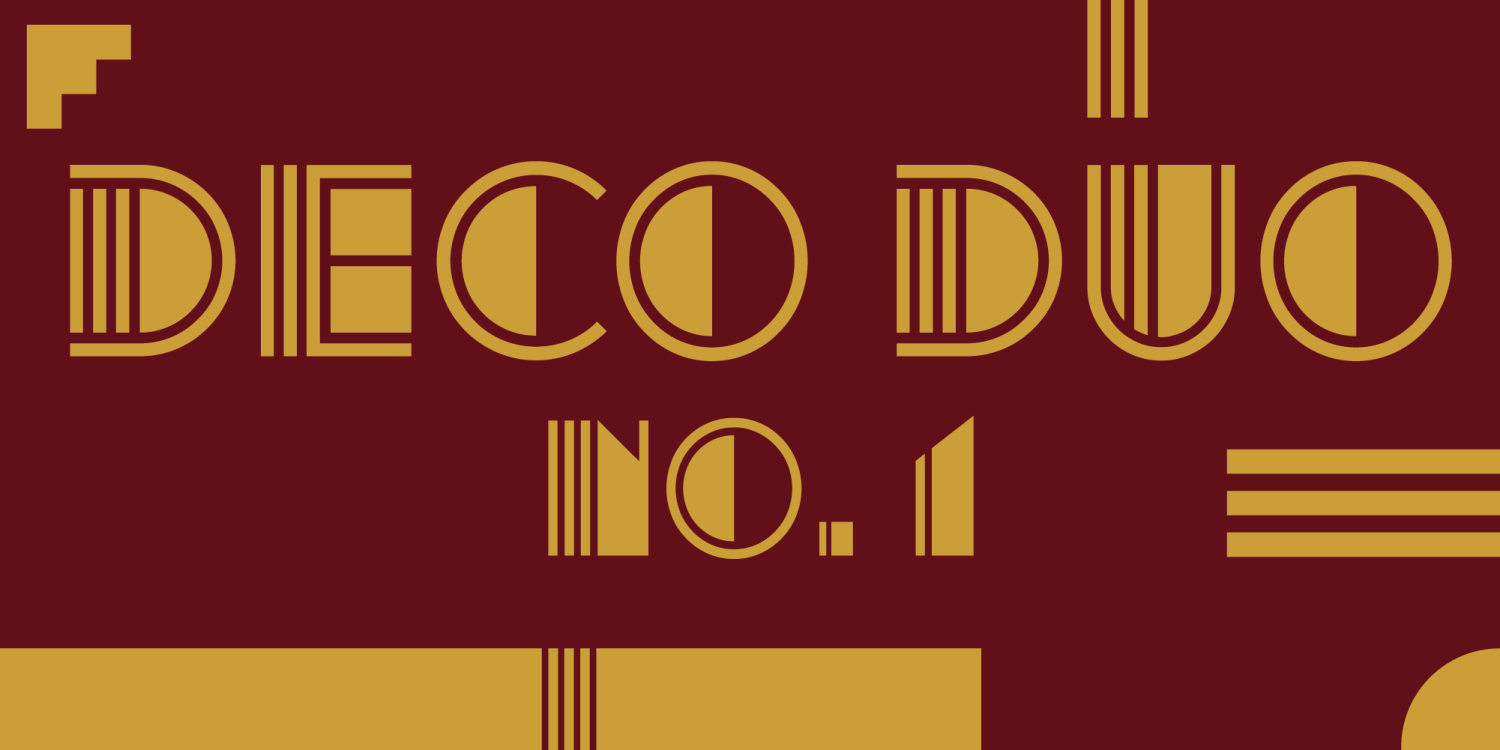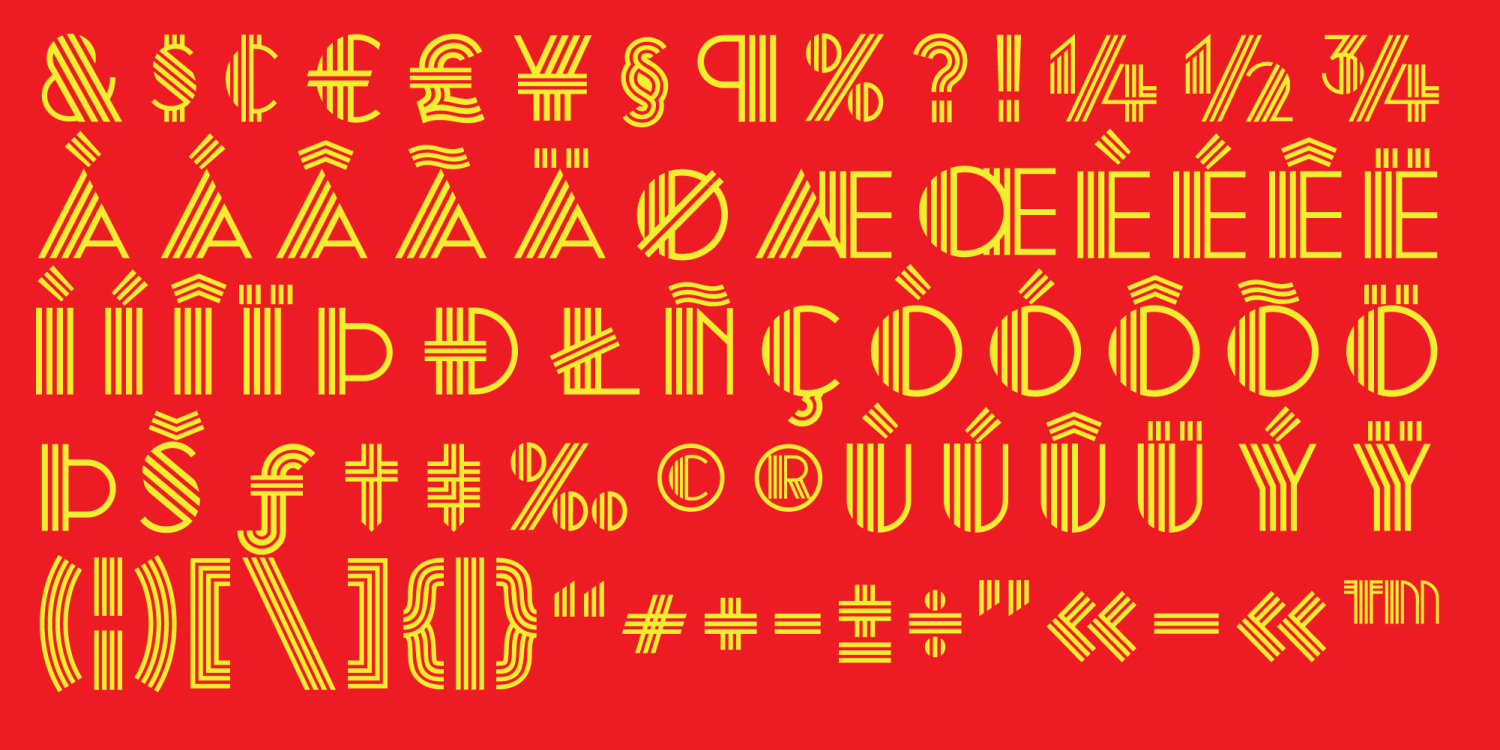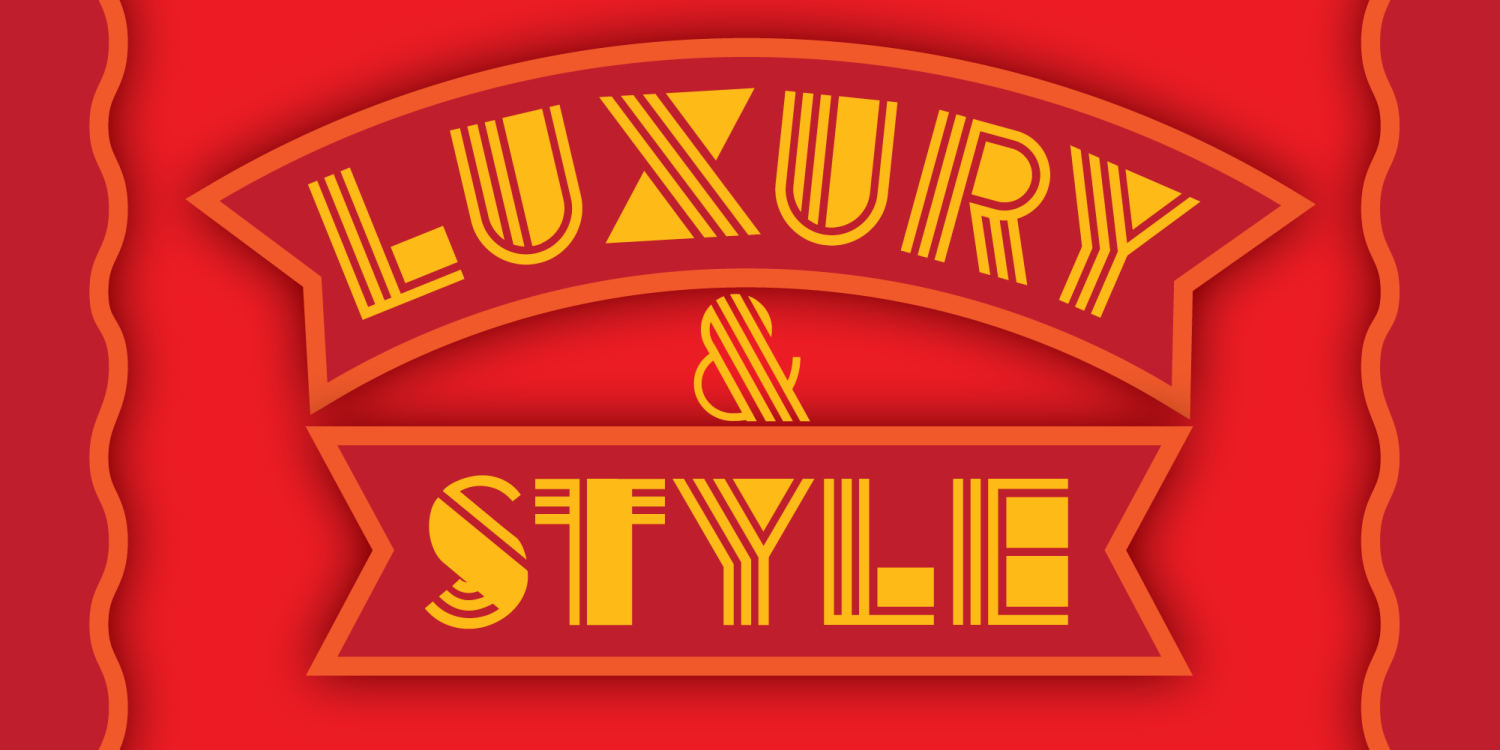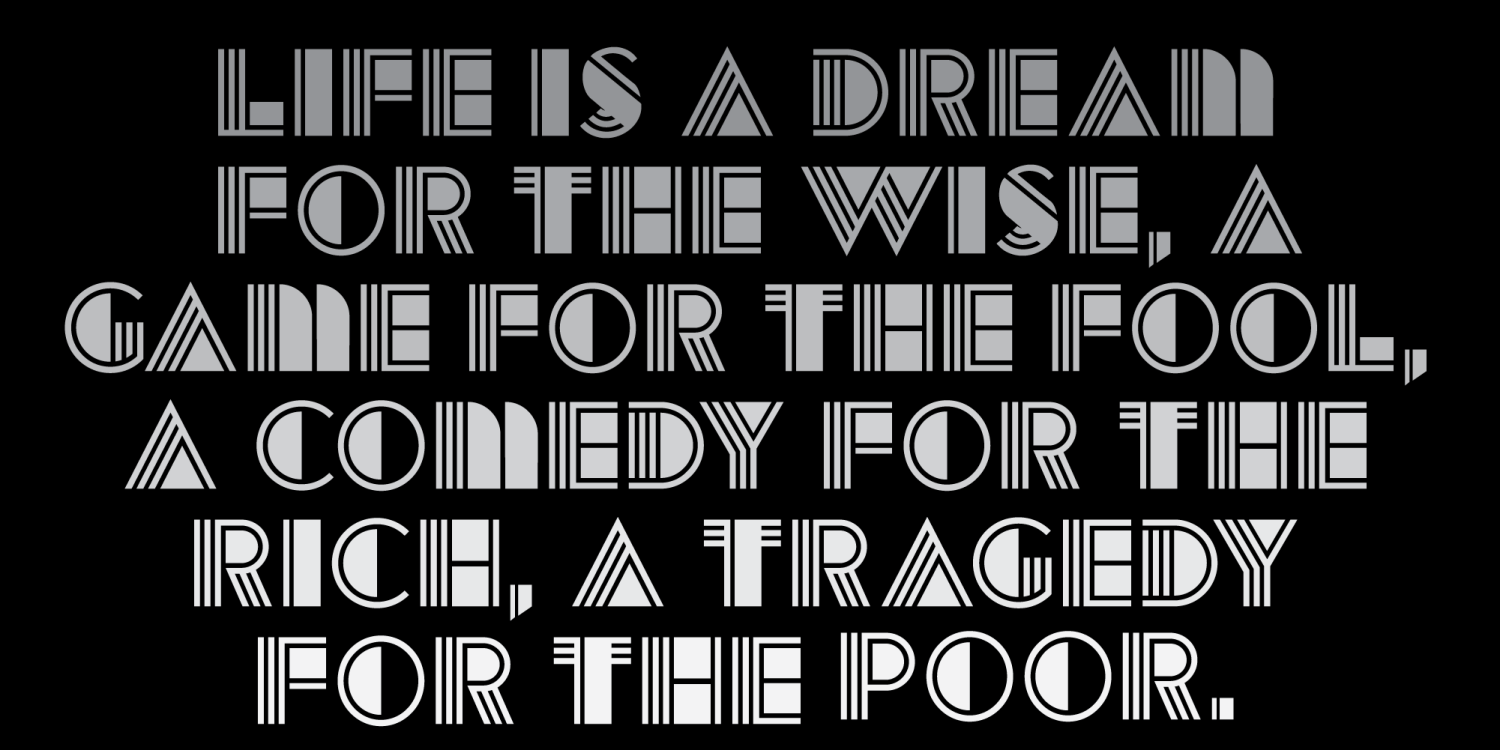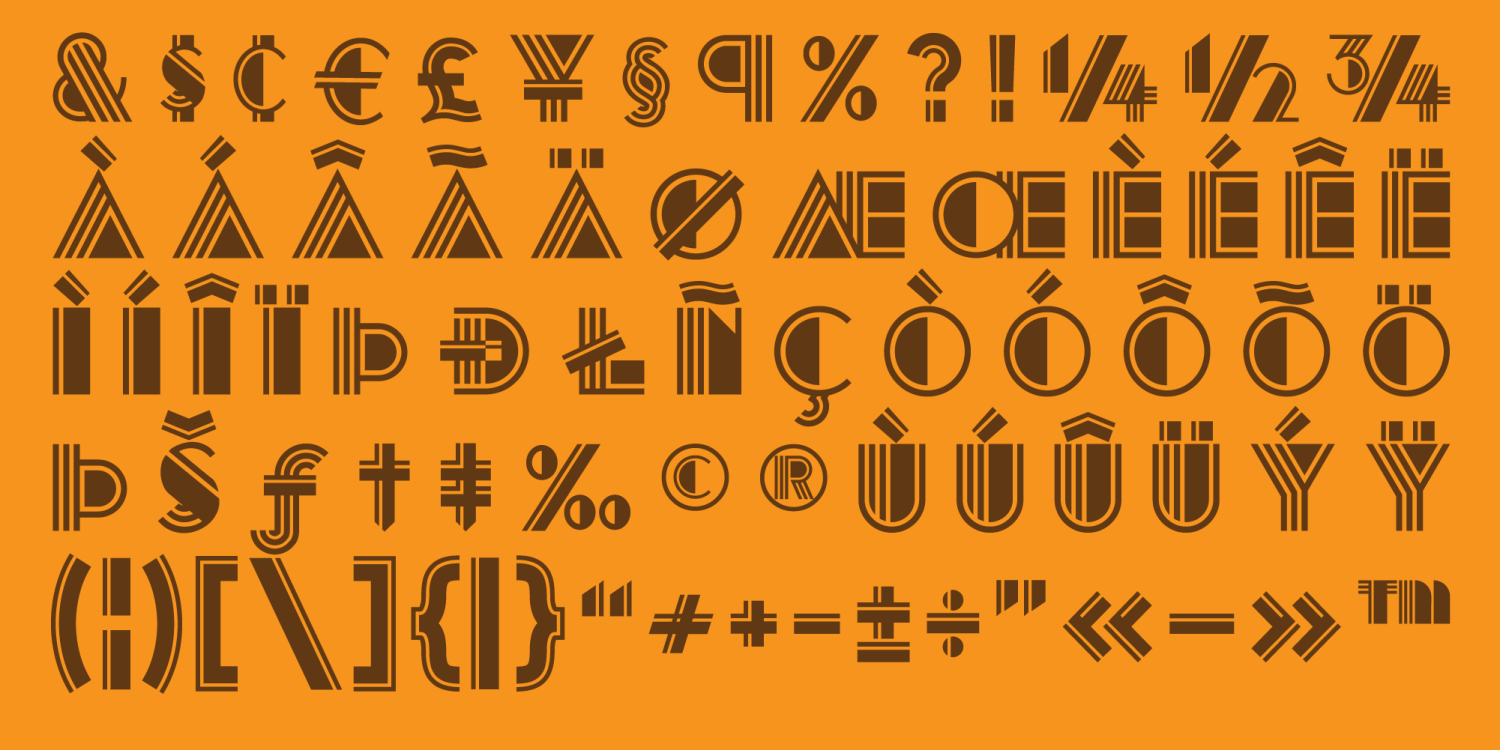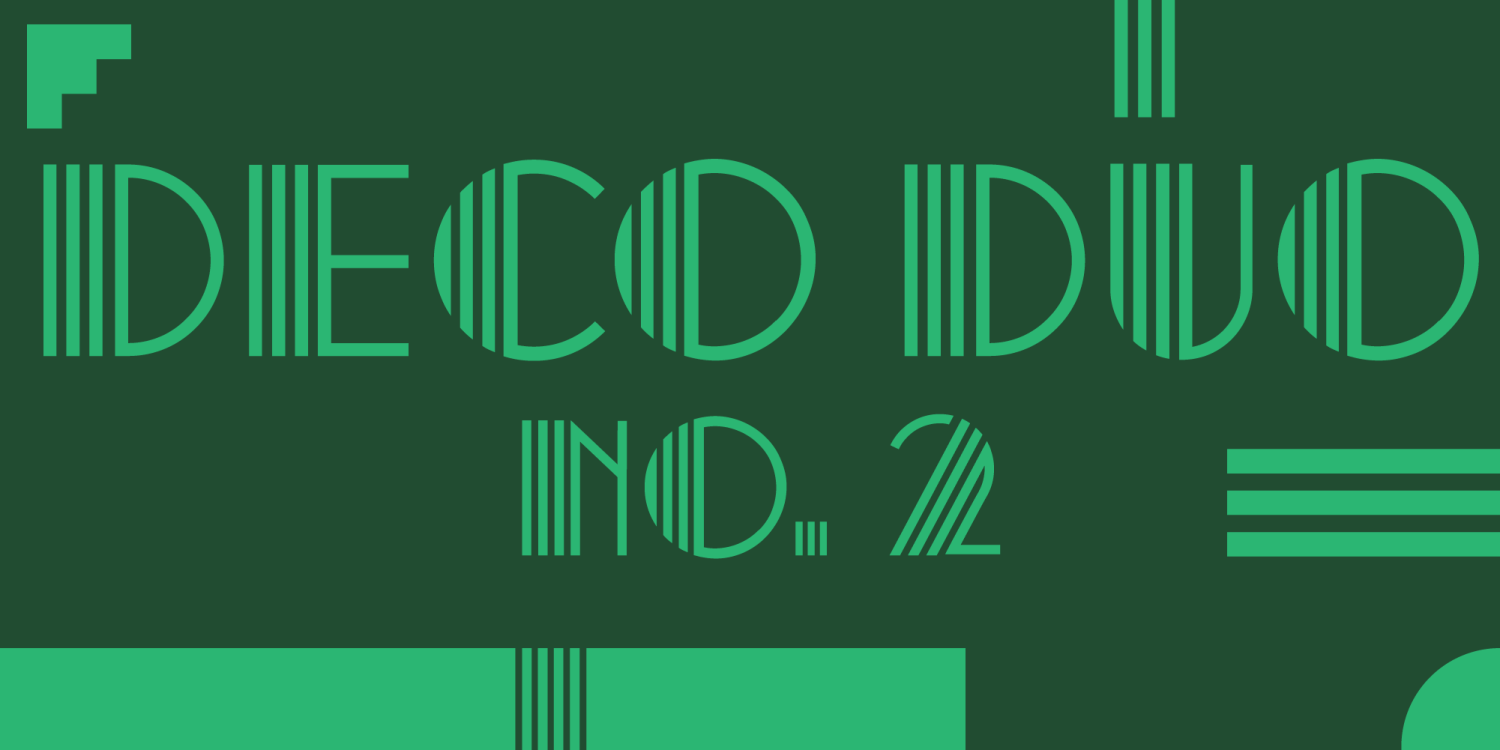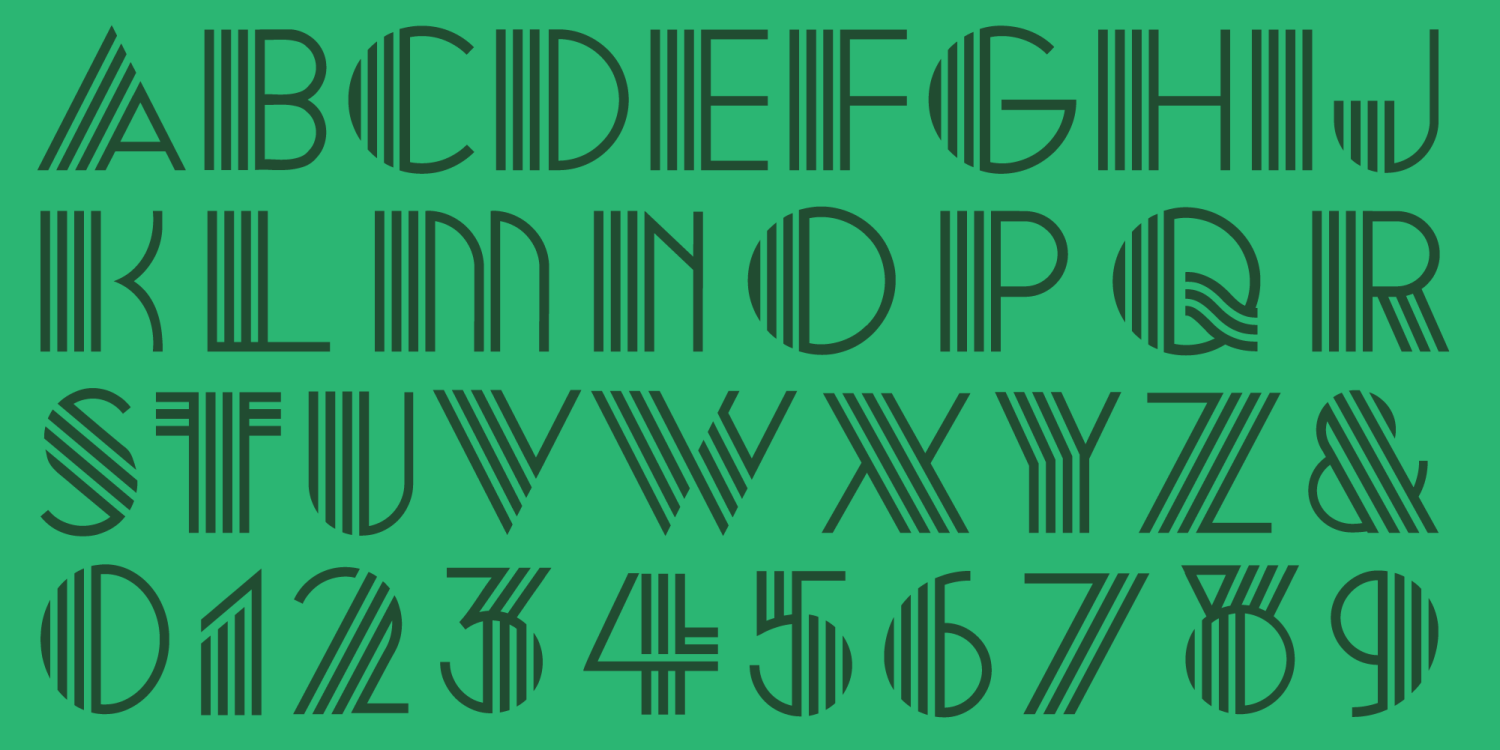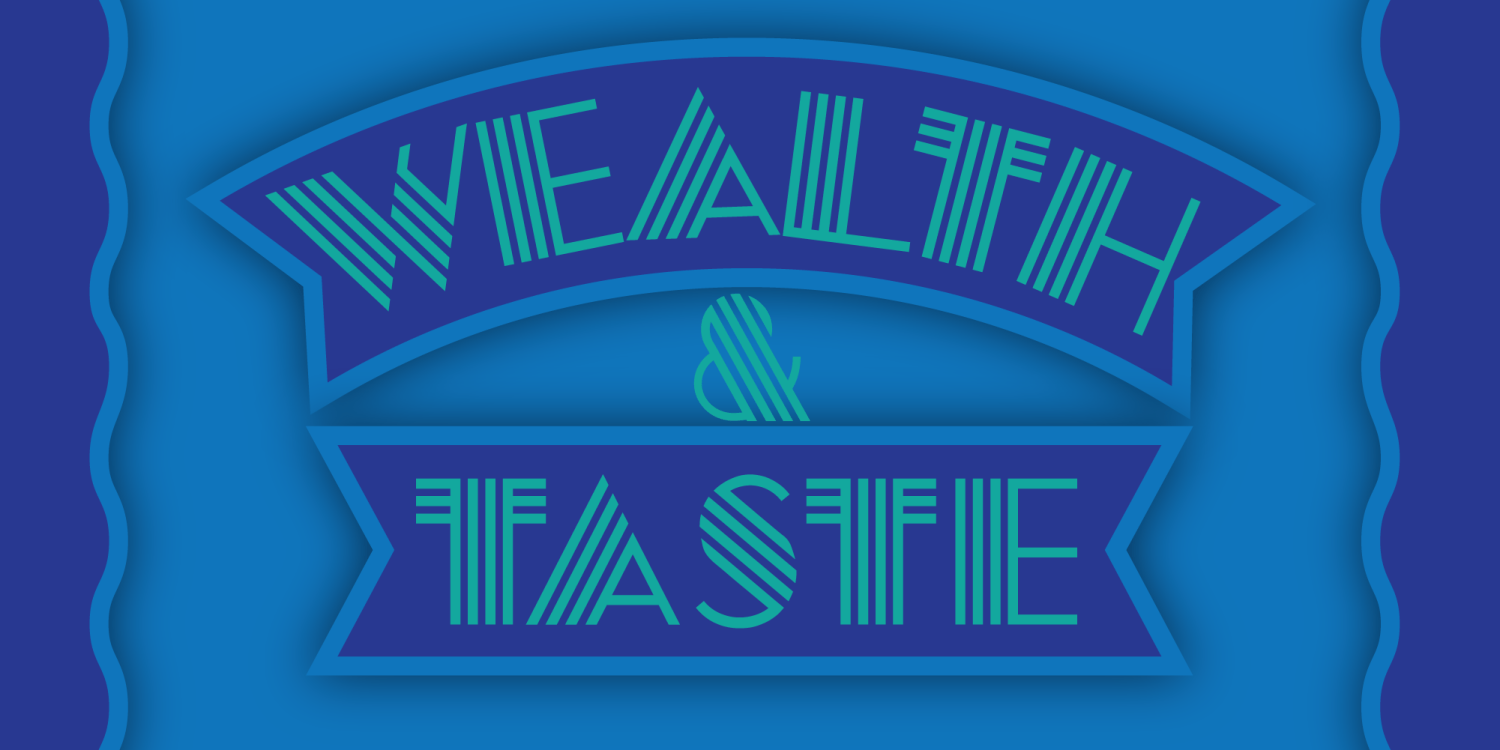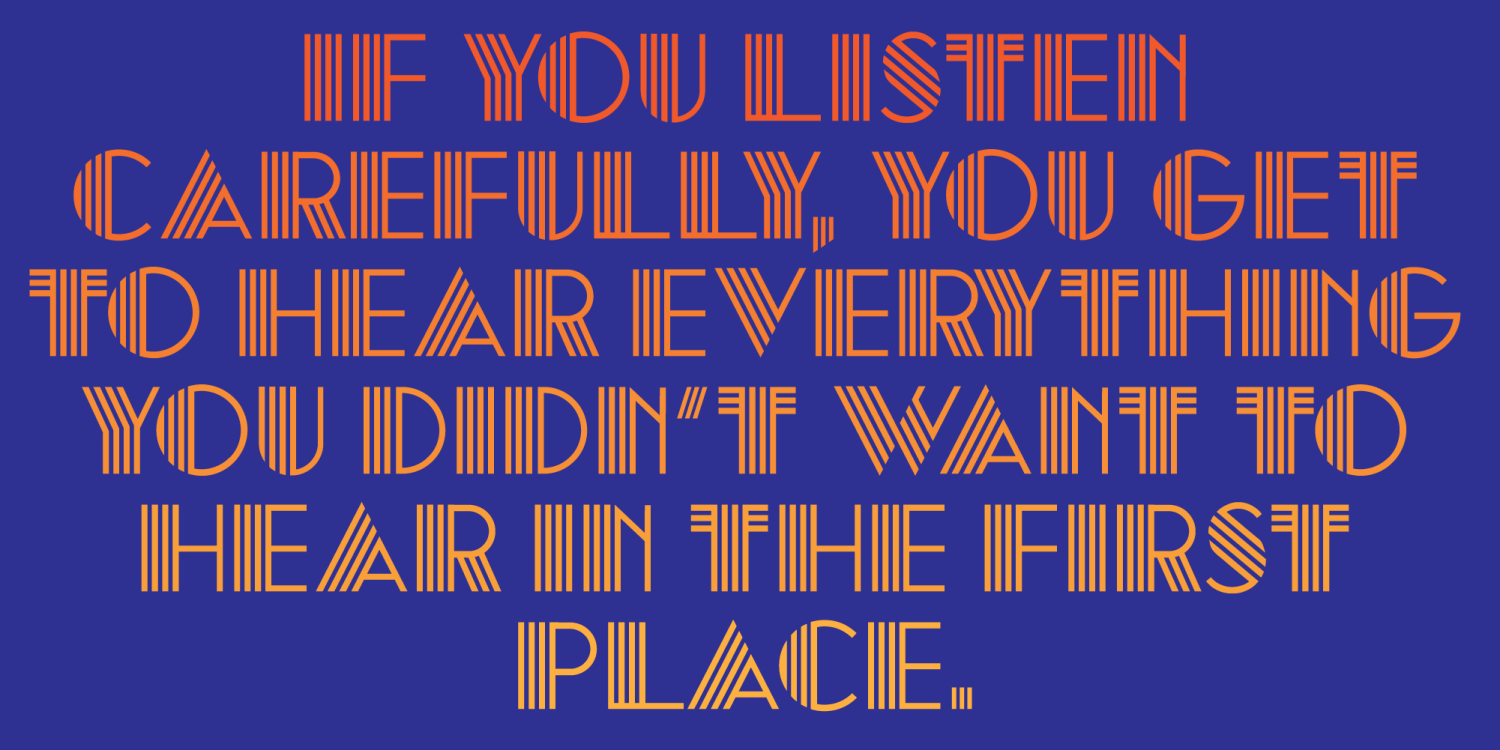
Deco Duo
Step into a timeless fusion of past and future with Deco Duo a pair of fonts that capture the elegance of ancient Egypt while embracing the sleek sophistication of modernity.
Inspired by the grandeur of hieroglyphic inscriptions and the flowing artistry of Art Deco, these typefaces combine geometric precision with bold shapes and evoke the mystique of golden sands and towering obelisks, perfect for designs that demand timeless sophistication. With clean, minimalist aesthetic, they reimagine Art Deco motifs as much at home in high-tech branding as it is in contemporary art galleries.
Together, these fonts bring an opulent yet forward-looking spirit to your designs, making them ideal for invitations, logos, packaging, or editorial spreads that bridge ancient elegance and futuristic vision.